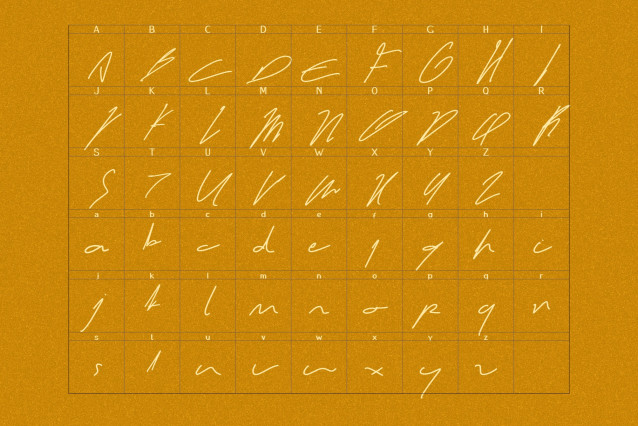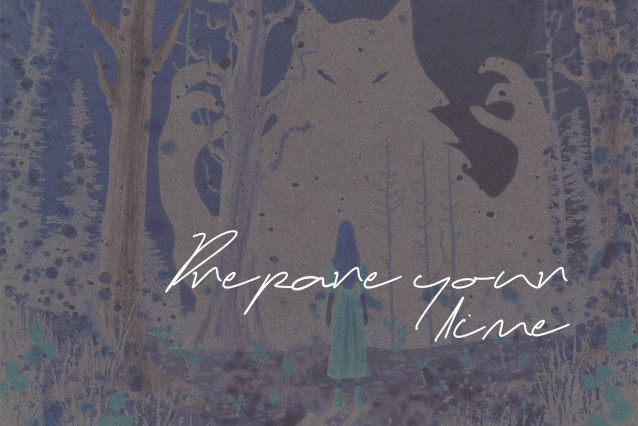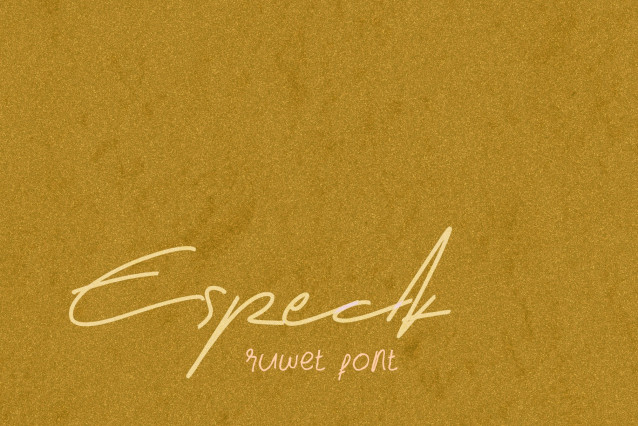
Especk Script Font
Especk Script Font is a simple and friendly handwritten font. Its natural and unique style makes it incredibly fitting to a large pool of designs. The only limit is your imagination!